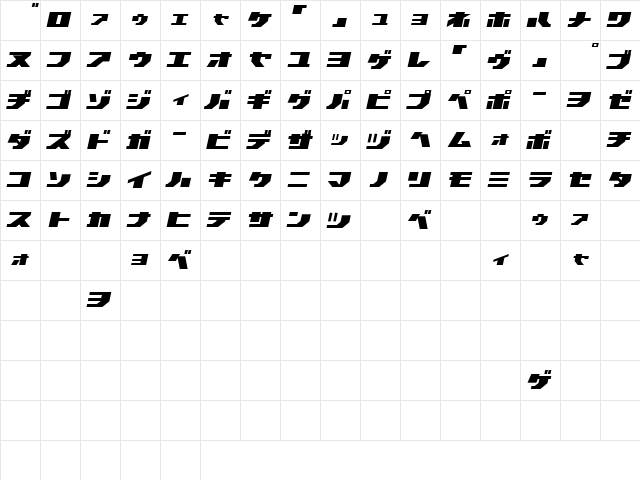
TGR 3.0 J Italic
Design Context for TGR 3.0 J Typeface
TGR 3.0 J offers clean, dependable letterforms without strong stylistic allegiance, making it a practical choice for designers who need flexibility. Its italic angle brings a sense of urgency and motion to the letterforms.
Pro Tip: Use TGR 3.0 J for emphasis, pull quotes, and subheadings where its slanted energy can add rhythm to the layout.